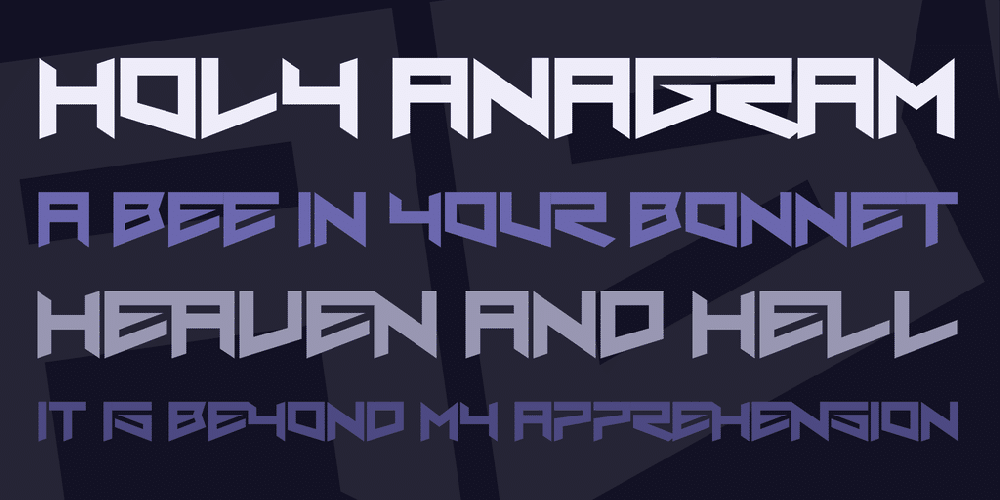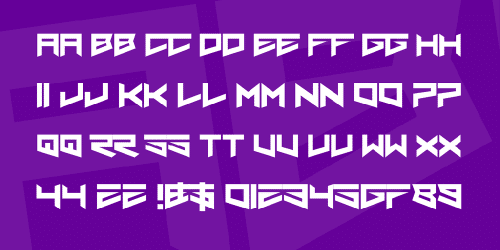
Nero Font was Based on the British band of the same name. Free for all use, only recommended for use in Nero-based fan works.
- Designer: Chequered Ink